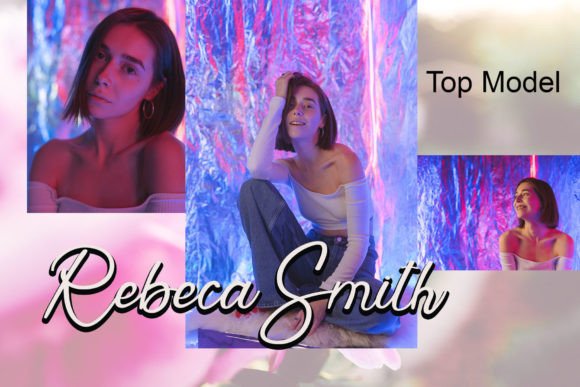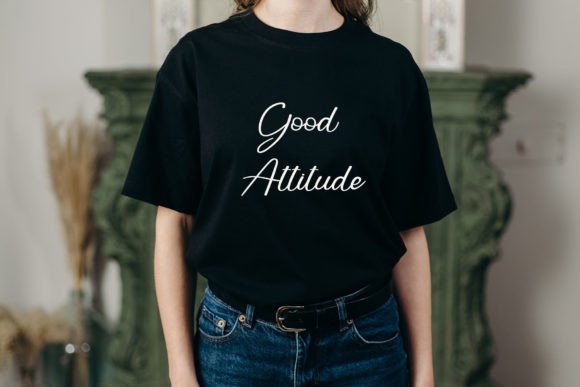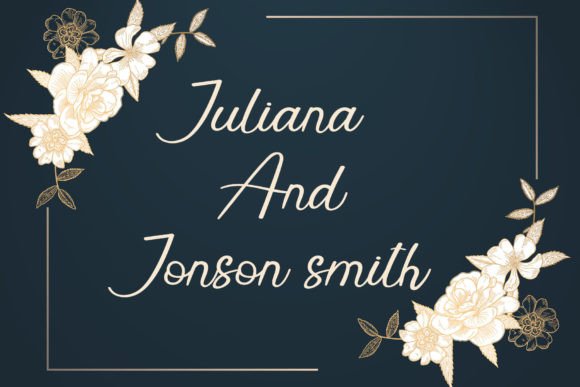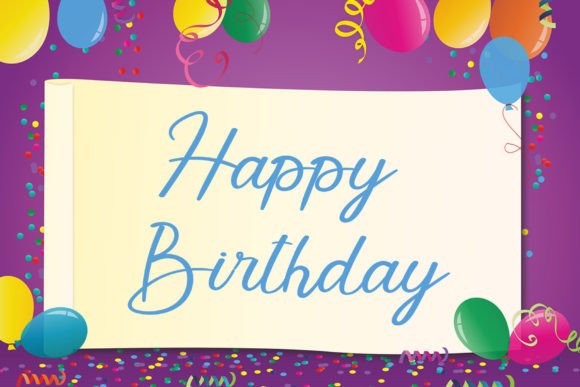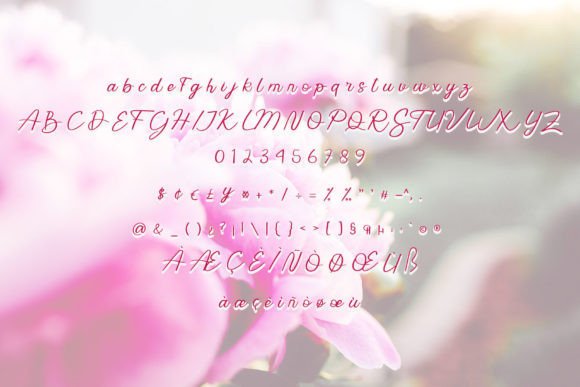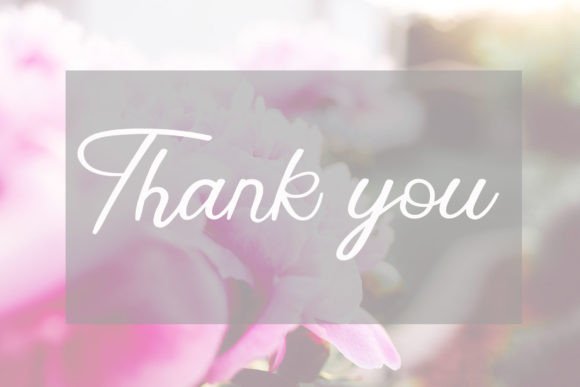
Introducing Anastasia Font: The Sweet and Friendly Handwritten Font for Your Creative Projects
Are you looking for a font that can add a personal touch to your designs? Look no further than Anastasia Font, a sweet and friendly handwritten font that’s perfect for a variety of creative projects. In this article, we’ll explore the features and benefits of Anastasia Font, and show you how to use it to take your designs to the next level.
What is Anastasia Font?
Anastasia Font is a beautiful handwritten font that’s designed to bring a fresh and casual feel to your designs. With its smooth and flowing lines, Anastasia Font is ideal for writing wedding invitations, cards, or any other design that might need a lovely touch. Whether you’re a designer, crafter, or DIY enthusiast, Anastasia Font is a versatile and easy-to-use font that’s sure to become a favorite in your toolkit.
Key Features of Anastasia Font
- Handwritten style: Anastasia Font has a warm and personal handwritten style that’s perfect for creating unique and eye-catching designs.
- Fresh and casual feel: This font has a lighthearted and airy feel that’s ideal for designs that need a playful touch.
- Highly legible: Anastasia Font is designed to be easy to read, making it perfect for body text and headlines.
- Multilingual support: Anastasia Font supports multiple languages, making it a great choice for designers who work with international clients.
Use Cases for Anastasia Font
Anastasia Font is a versatile font that can be used in a variety of creative projects, including:
- Wedding invitations and stationery: Anastasia Font is a popular choice for wedding invitations, save-the-date cards, and other wedding stationery.
- Greeting cards and gift tags: This font is perfect for creating personalized greeting cards and gift tags for special occasions.
- Branding and packaging: Anastasia Font can be used to create unique and eye-catching branding and packaging designs.
- Blogging and social media: This font can be used to create engaging and stylish blog posts and social media graphics.
Tips for Using Anastasia Font
Here are some tips for getting the most out of Anastasia Font:
- Pair with complementary fonts: Anastasia Font pairs well with clean and simple fonts like Arial, Helvetica, or Open Sans.
- Experiment with colors and textures: Try pairing Anastasia Font with different colors and textures to create unique and eye-catching designs.
- Use for headlines and body text: Anastasia Font is highly legible, making it perfect for both headlines and body text.
Anastasia Font is a beautiful and versatile handwritten font that’s perfect for designers, crafters, and DIY enthusiasts. With its fresh and casual feel, Anastasia Font is ideal for creating unique and eye-catching designs for a variety of creative projects. Whether you’re looking to create wedding invitations, greeting cards, or branding designs, Anastasia Font is a great choice. So why not give Anastasia Font a try and see how it can elevate your designs?